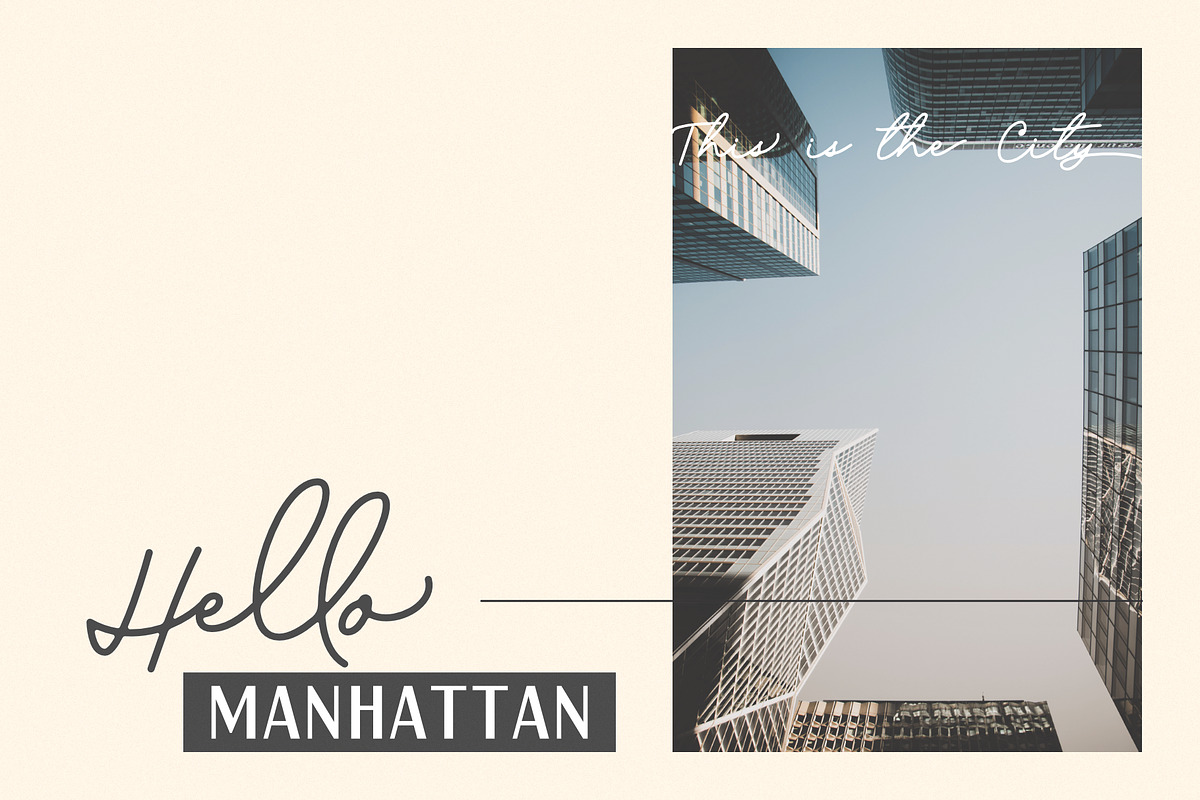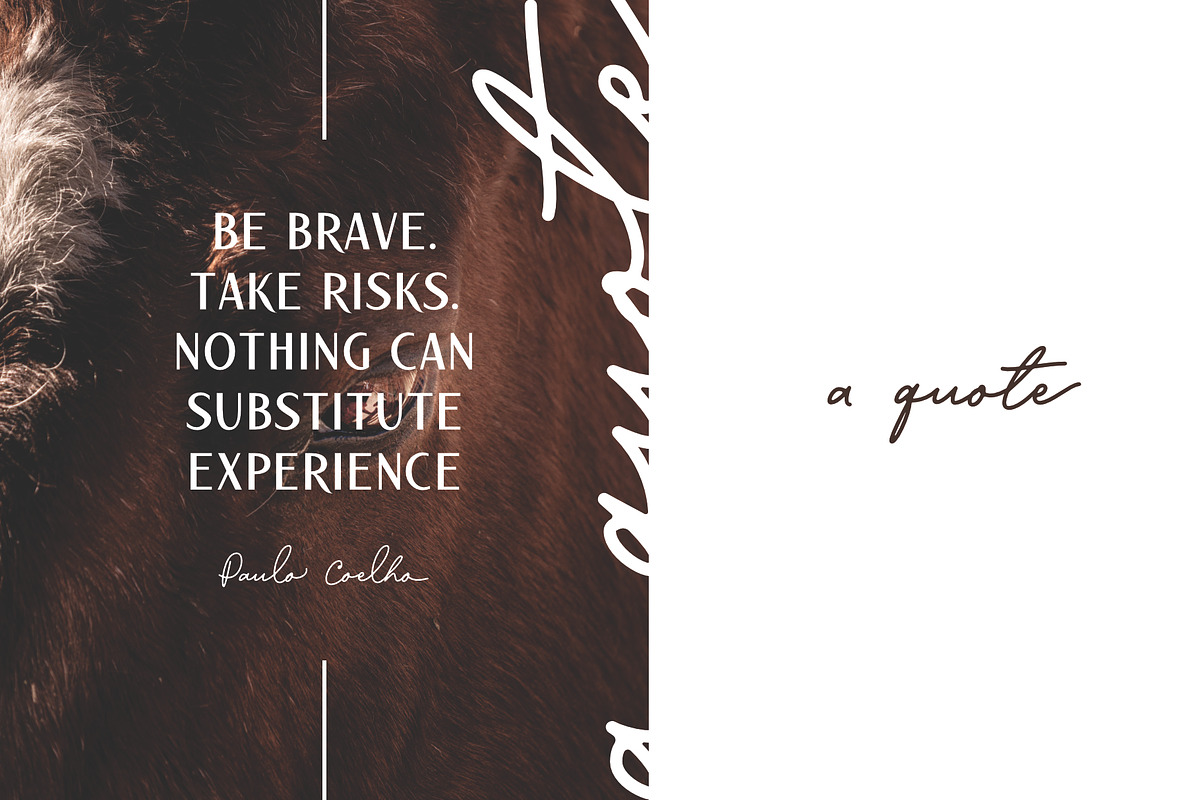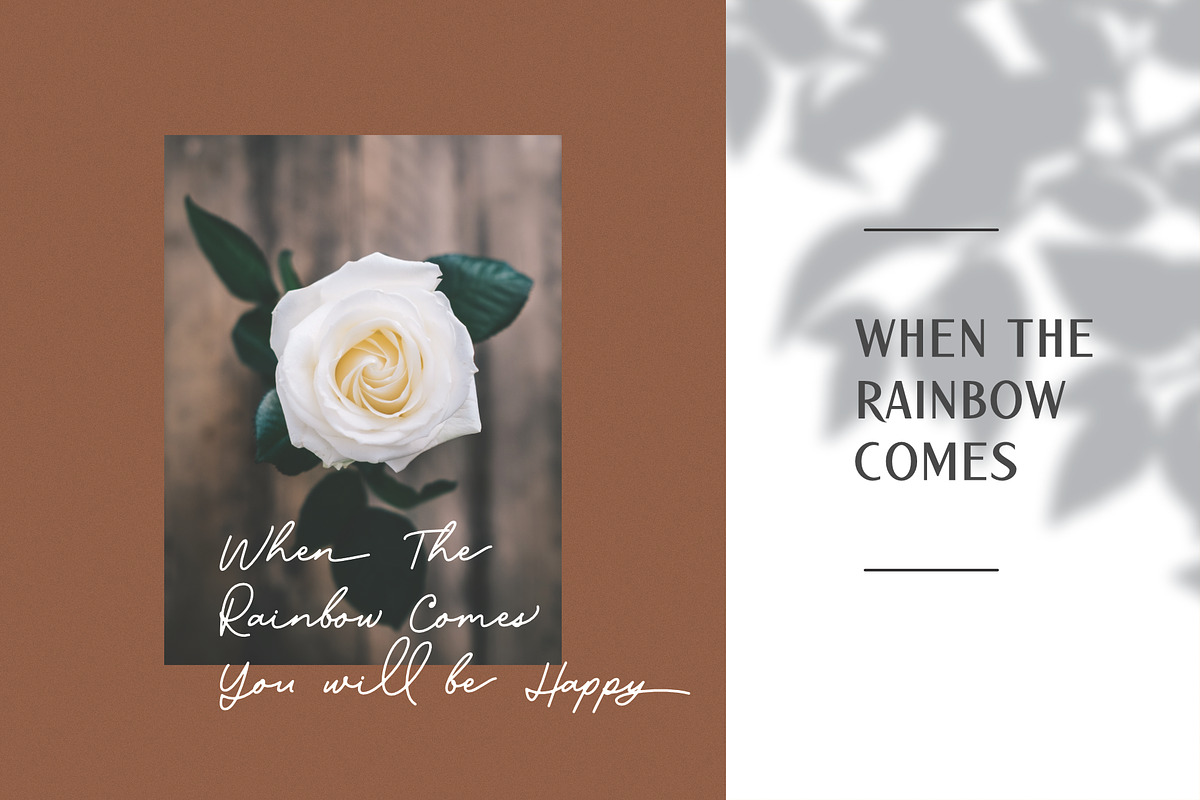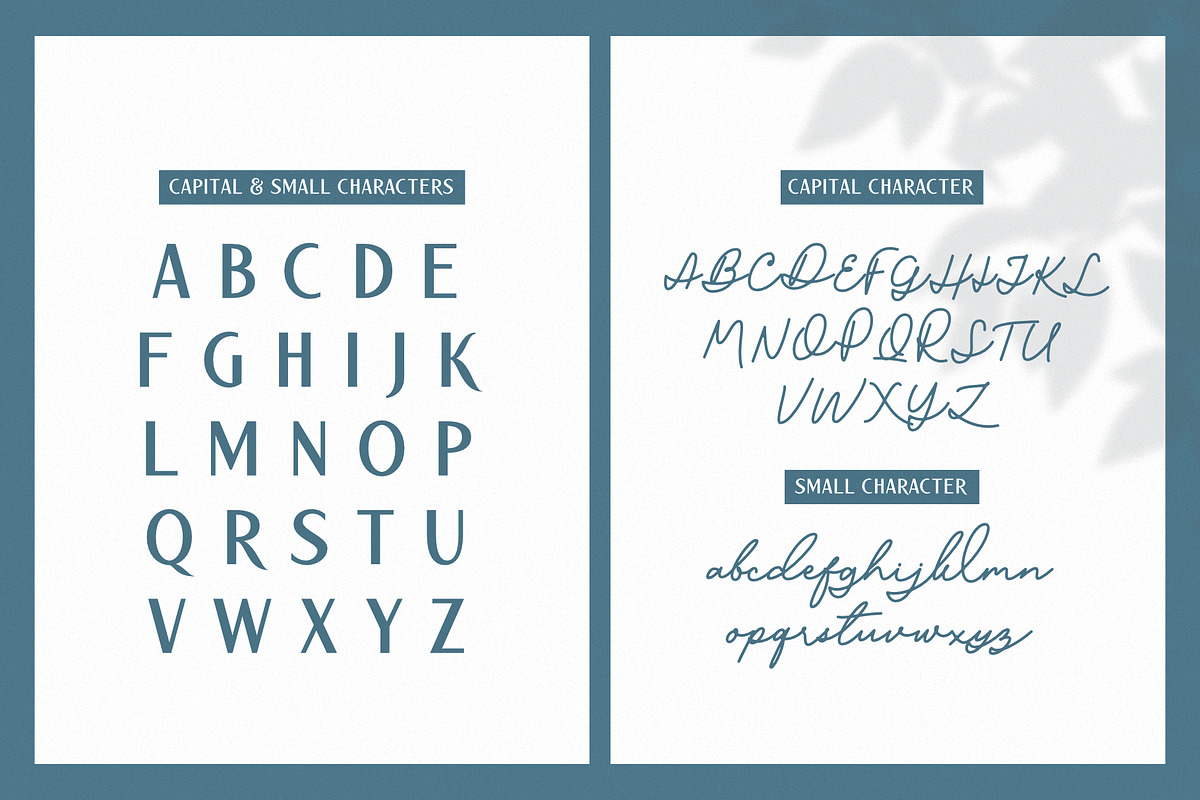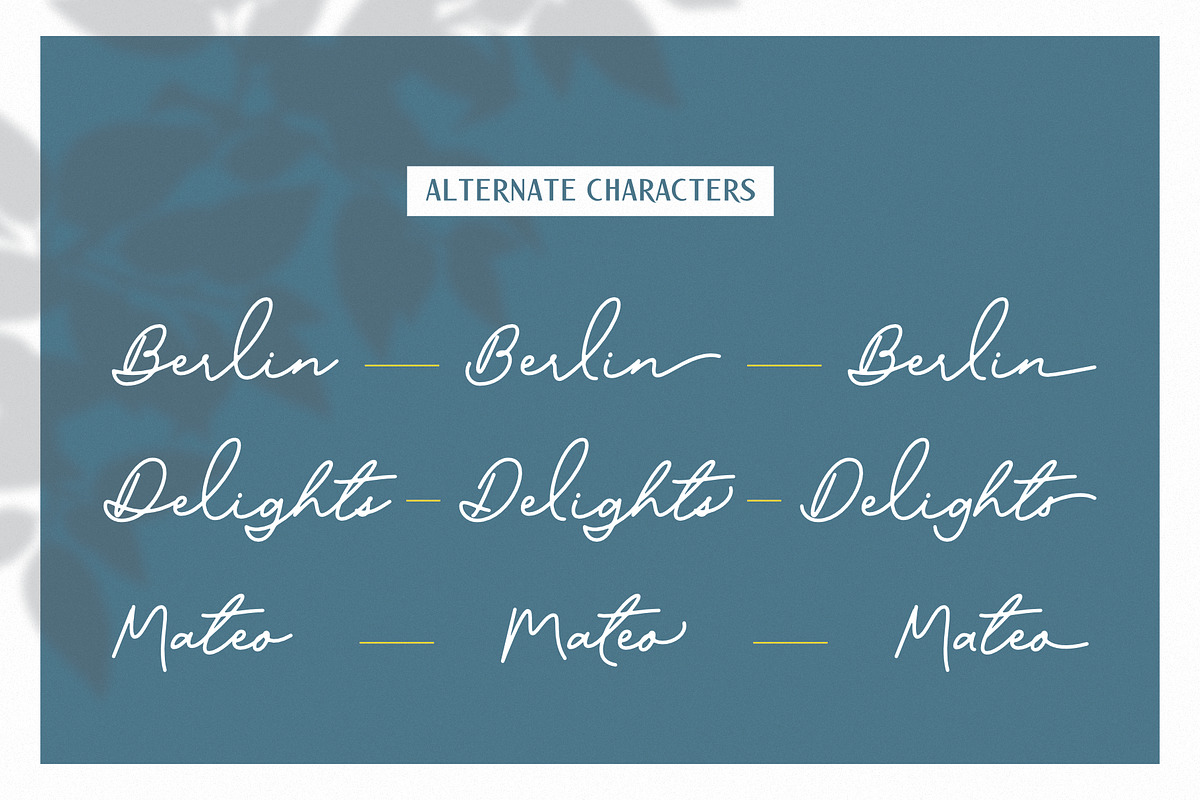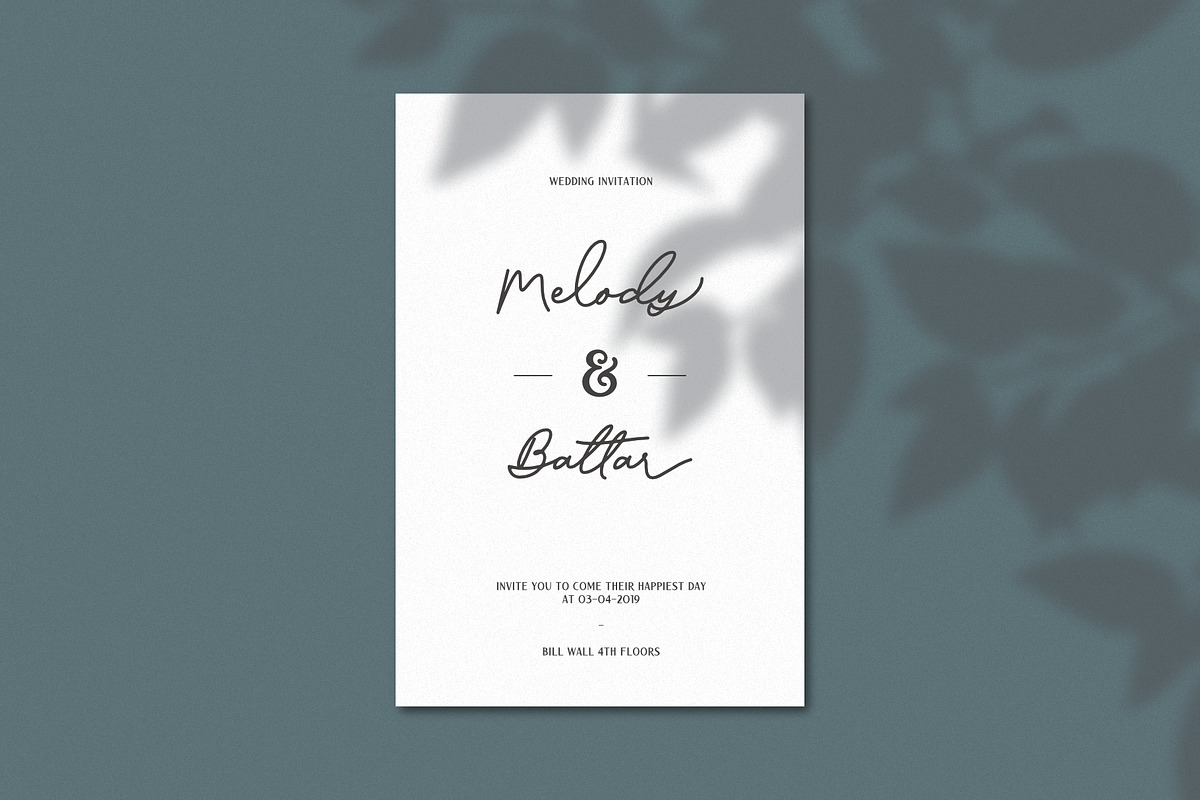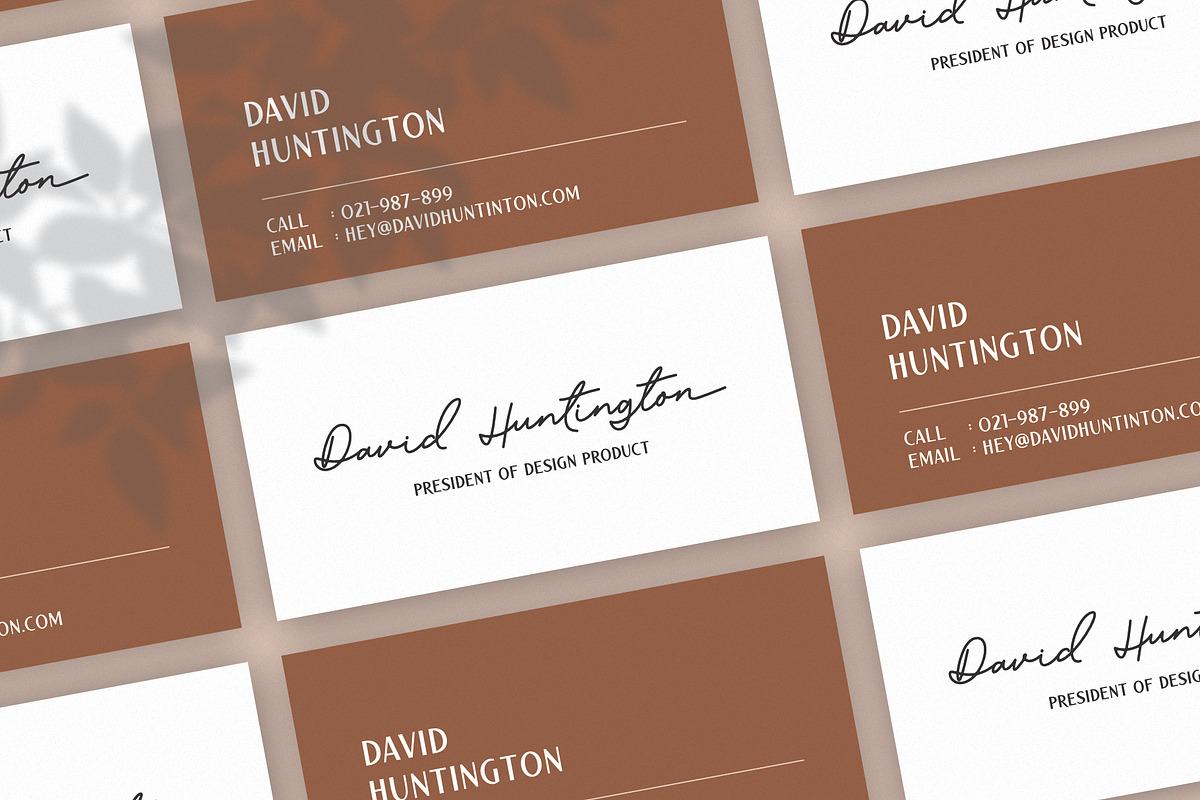
Prague Signatures // Font Duo
Prague Signatures is a classy font duo that carefully crafted, this brand new came in two styles sans and script that very suitable for any creative projects like logo design, branding, advertising, media promotion, tittle and many more.
The Prague Signatures script version also contained opentype feature like "ligature, alternate characters and stylistic alternate".